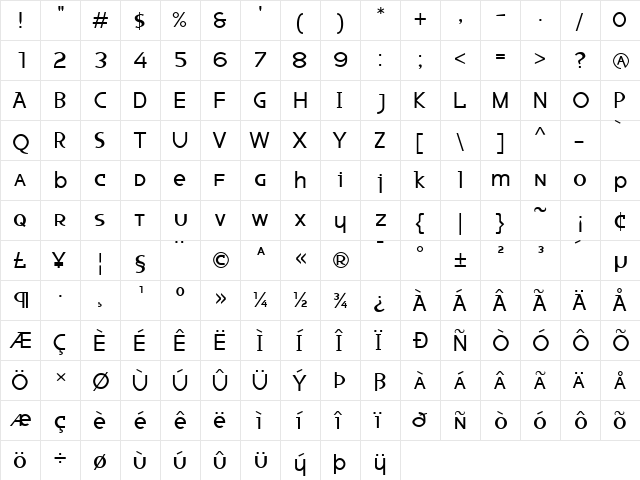
Ketchup Spaghetti Regular
Design Context for Ketchup Spaghetti Typeface
Ketchup Spaghetti offers clean, dependable letterforms without strong stylistic allegiance, making it a practical choice for designers who need flexibility.